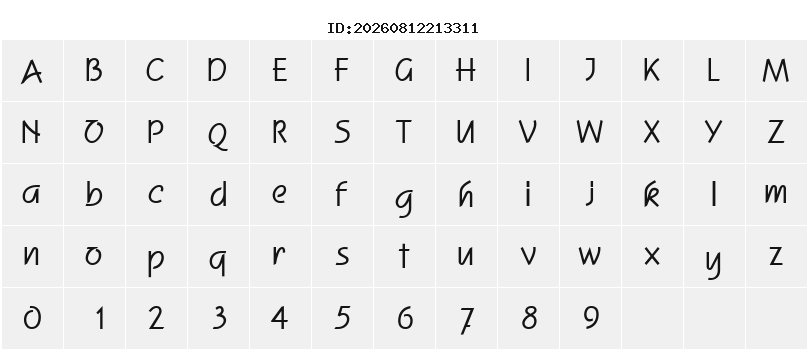
• Font Name: Revere
• Full Font Name: Revere
About Revere.ttf
Revere.ttf is a modern, elegant sans-serif font designed for ultimate readability and visual harmony. Perfect for branding, headlines, web design, and print materials.